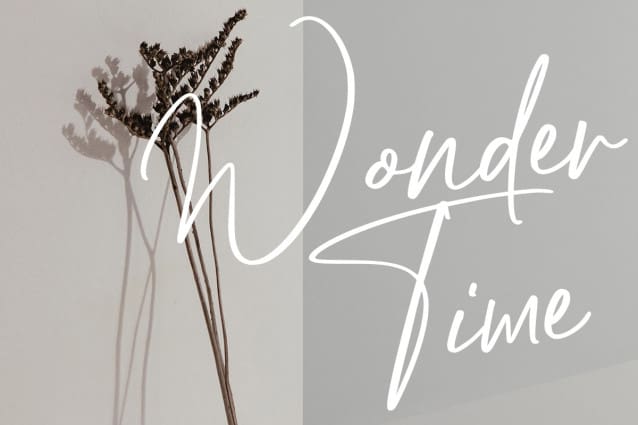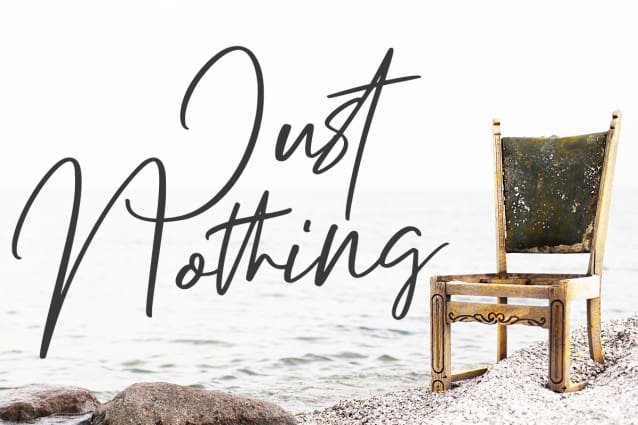
Enterlight Handwritten Font
Enterlight Handwritten Font exists as proof that fonts can exude an aura of their own. This font is part of the Script & Signature fonts. The font was in beautiful shape. We can see the characteristics of the fonts that connect each other between the letters. It includes eligible fonts.
Enterlight Handwritten Font appearance makes it suitable to be combined with objects that want to present a simple, elegant, and luxurious impression. Perfume brands will look more charming when combined with this font. Also, this font can be used on weddings, posters, and magazine covers. It is also good to use for photography services promotion, making motivational quotes, and film titles.
From the description of the characteristics and uses mentioned above, Enterlight Handwritten Font is very suitable when used with medium font size. If printed in large size and viewed from a distance, it will not be easy to read and understand.